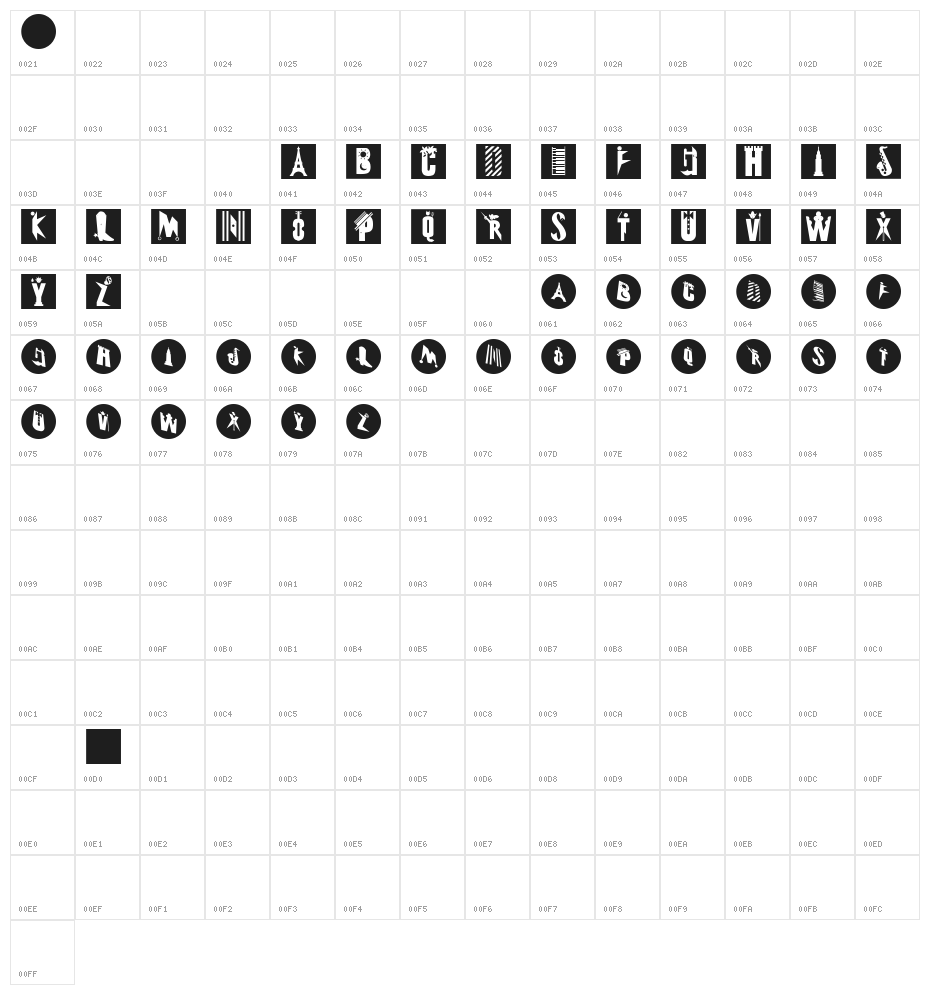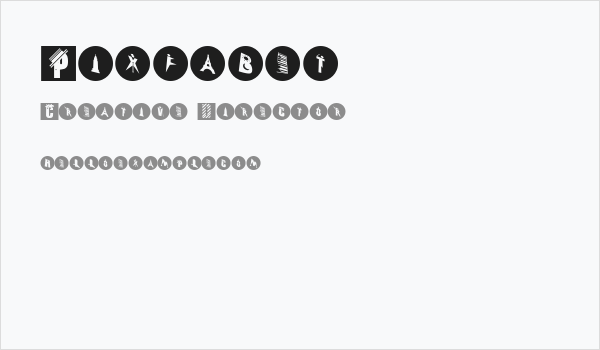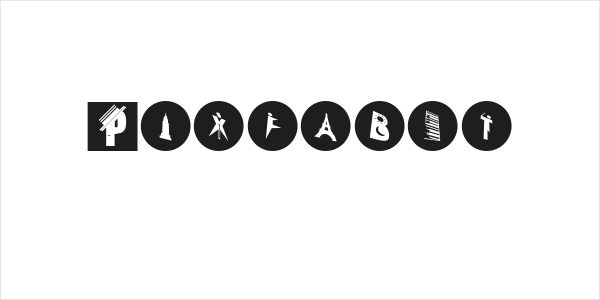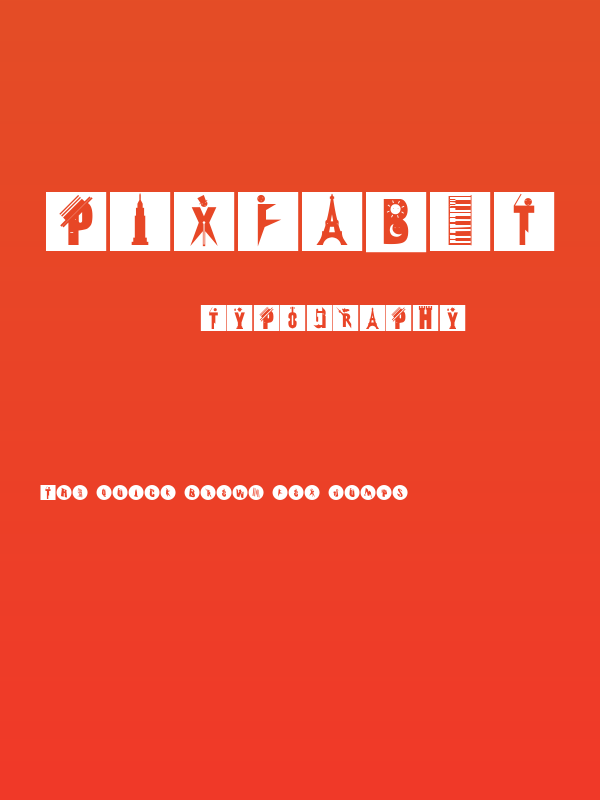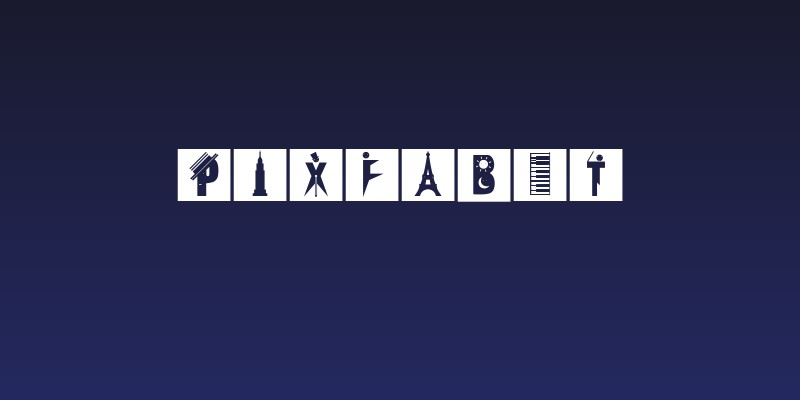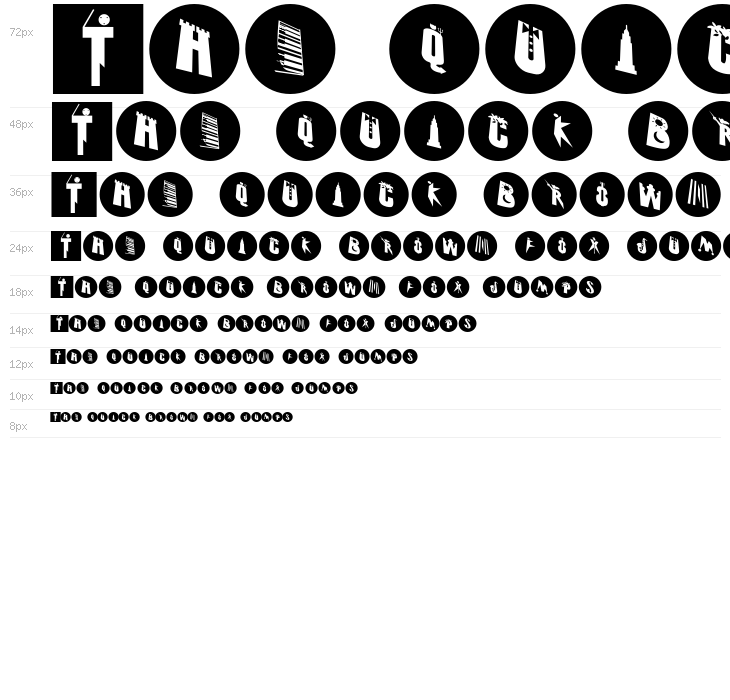
Pixfabet Font
Pixfabet Description
This font is a highly creative and decorative typeface where each letter is uniquely designed with intricate patterns and illustrations. The uppercase letters feature a variety of artistic elements, such as musical instruments, architectural structures, and abstract designs, making each character a standalone piece of art. The lowercase letters continue this theme, maintaining a playful and imaginative style. The font is visually striking and captures attention with its bold and artistic flair, making it ideal for projects that require a strong visual impact.
| Proposed Projects | Ideal for creative projects such as posters, album covers, branding for artistic events, and any design work that benefits from a bold and unique visual style. |